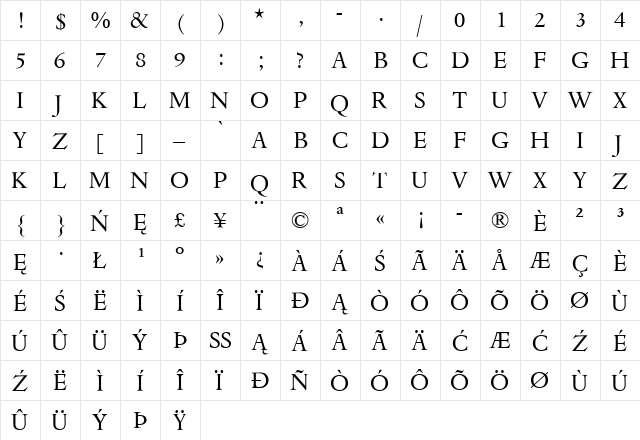
Dante Regular
Design Context for Dante Typeface
Dante is a composed and adaptable typeface that performs quietly and consistently across a wide range of design contexts.
Pro Tip: Pair Dante with a font of contrasting weight or personality to build a more expressive typographic hierarchy.